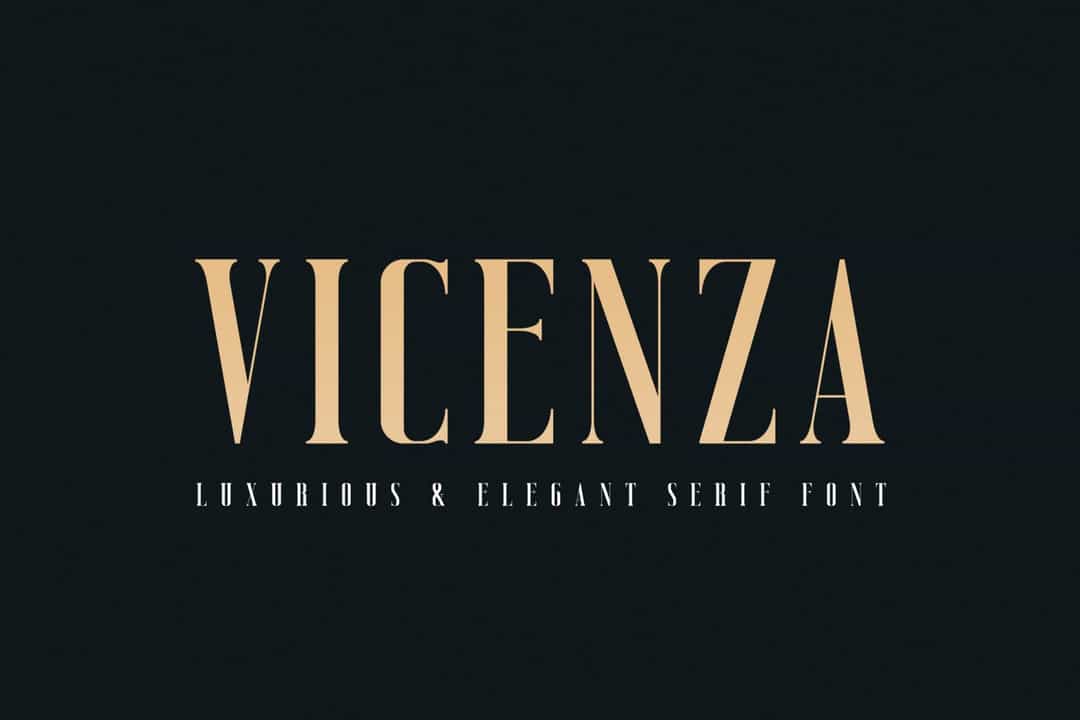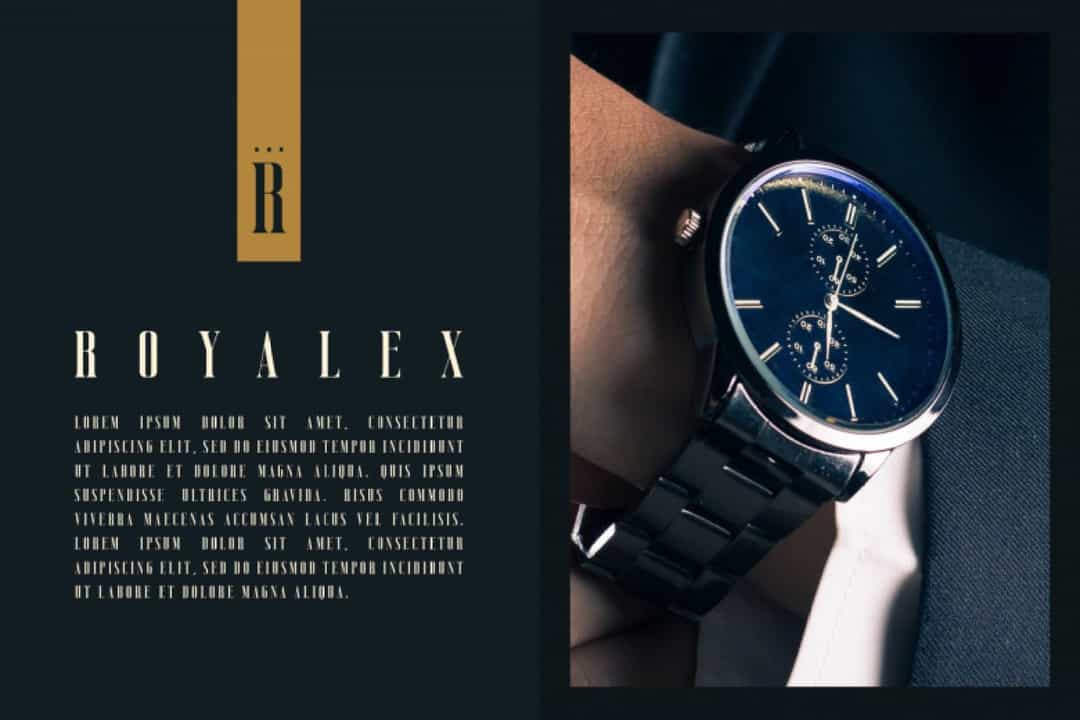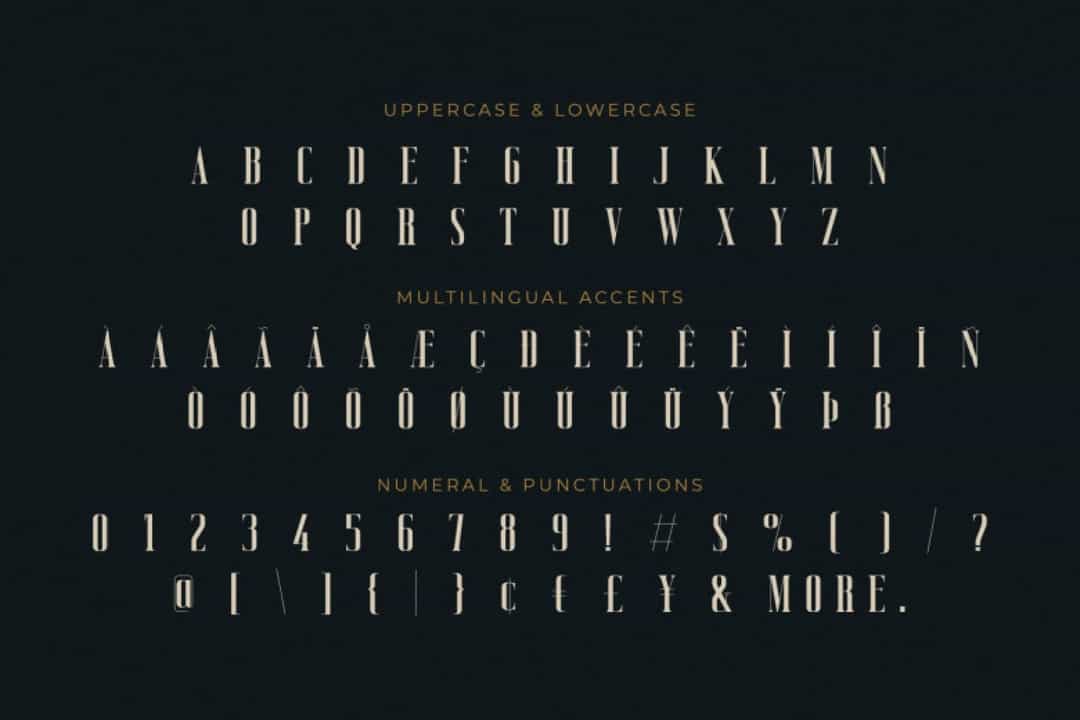
Vicenza Beautiful is an Elegant Serif Typeface that boasts modern minimalism in its aesthetics. Vicenza offers both Regular and Italic versions, which make this typeface ideal for designing templates for brochures, videos, logos and much more.